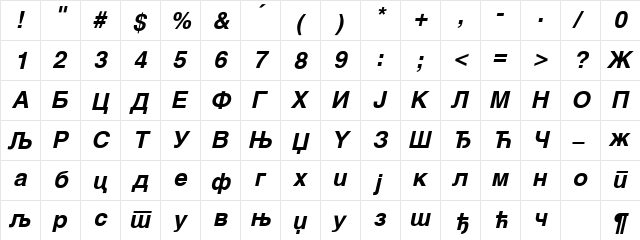
Arial Cirilica Bold Italic
Design Context for Arial Cirilica Typeface
Arial Cirilica takes a measured approach to typography — its balanced proportions and neutral character make it a reliable workhorse for both digital and print work. The dynamic lean of this cut emphasises speed and emphasis in any layout. Its bold stroke weight gives it real presence on the page.
Pro Tip: Use Arial Cirilica for emphasis, pull quotes, and subheadings where its slanted energy can add rhythm to the layout.